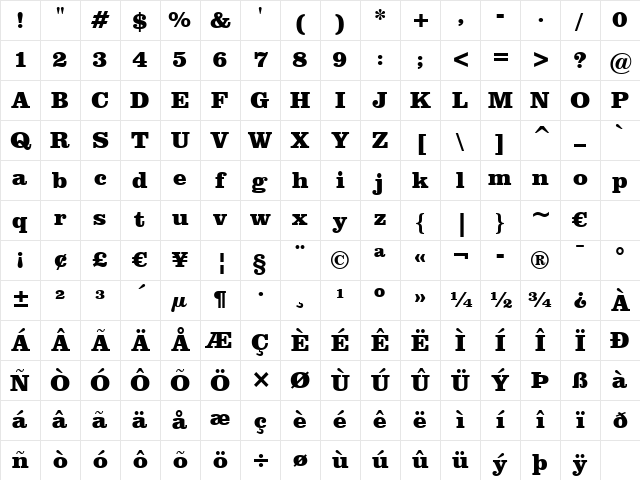
Complete Clarendon Blk BT Black glyph index. Displaying only characters natively supported by Clarendon Blk BT Black font.
Clarendon Blk BT features prominent, blocky serifs that give it a confident, grounded presence - equally at home in editorial settings and bold branding work.
Pro Tip: Use Clarendon Blk BT for headlines and subheadings where its slab serifs can make an impression. It also holds up well in mid-size body copy thanks to its sturdy construction.